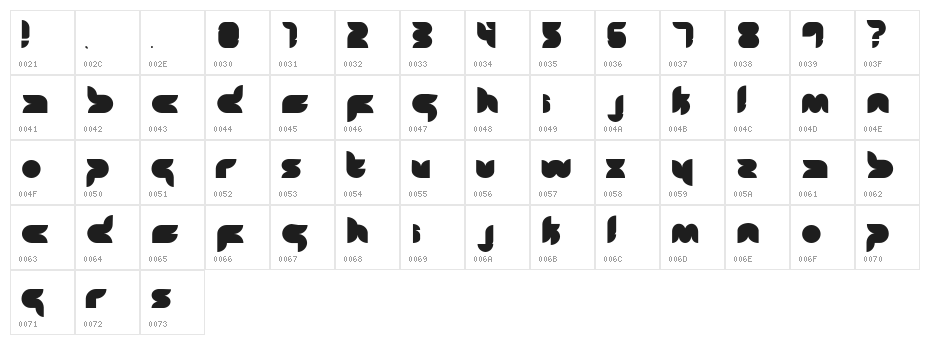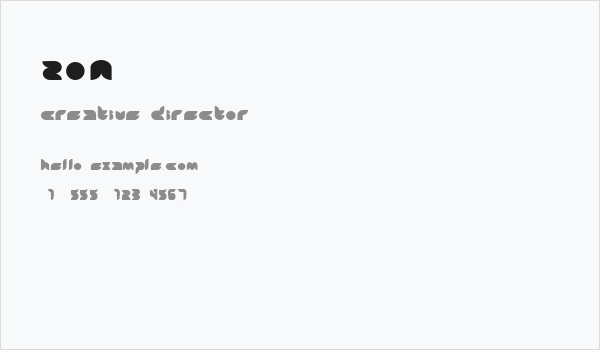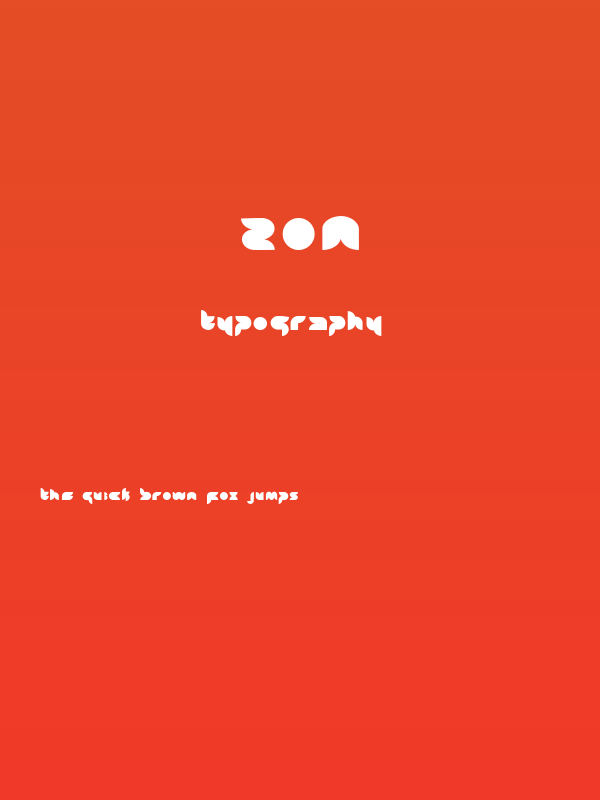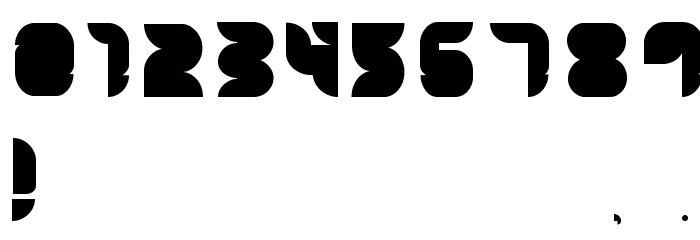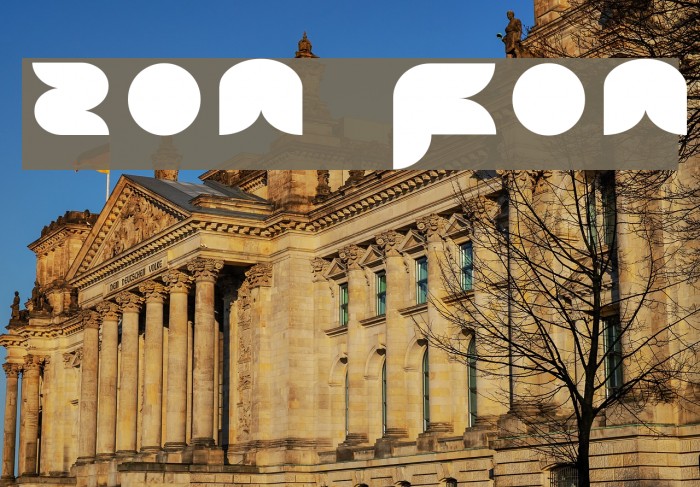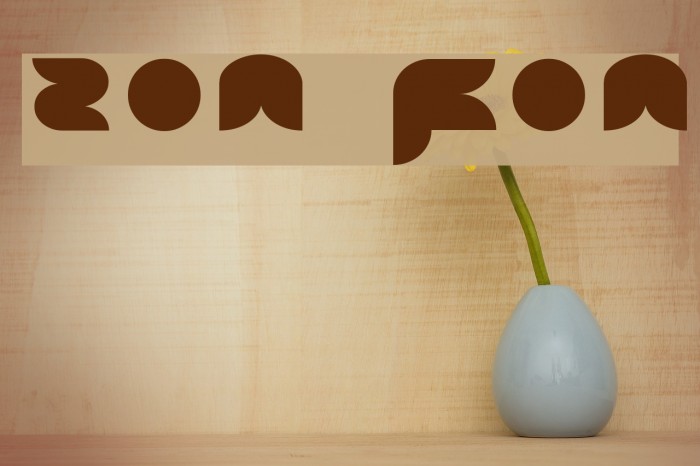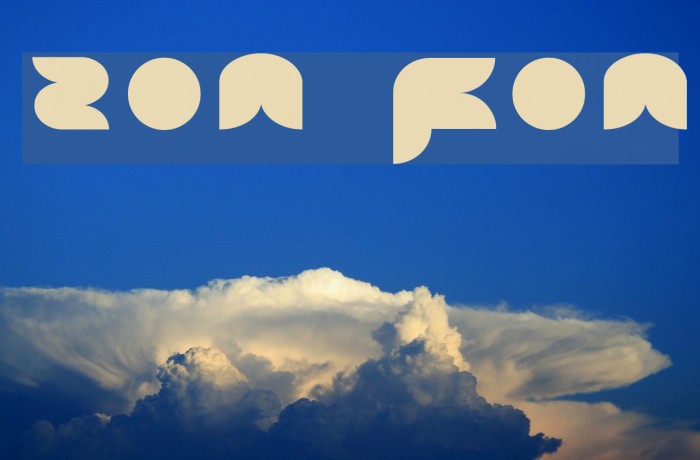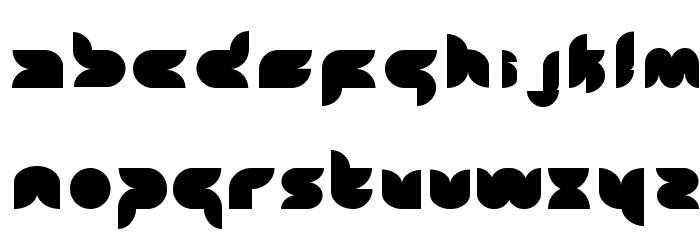
Zon Font
Zon Description
This font features a bold and geometric design with a futuristic flair. Each character is constructed with solid, block-like shapes, creating a sense of strength and modernity. The letters are uniform in height, with sharp angles and clean lines that give a distinct, edgy appearance. The numbers and special characters follow the same design principles, ensuring consistency across the entire typeface. The unique style of this font makes it stand out, ideal for projects that require a modern and impactful look.
| Proposed Projects | Ideal for branding, posters, sci-fi themed projects, and digital media that require a modern and bold statement. |